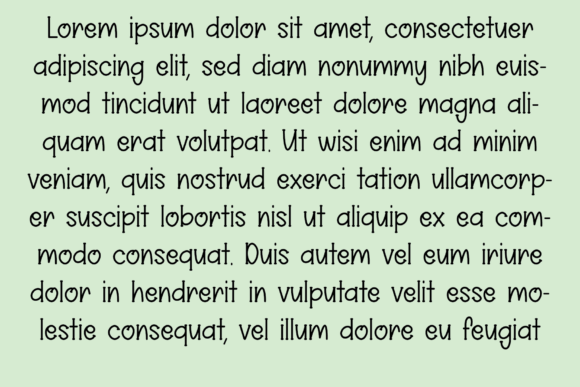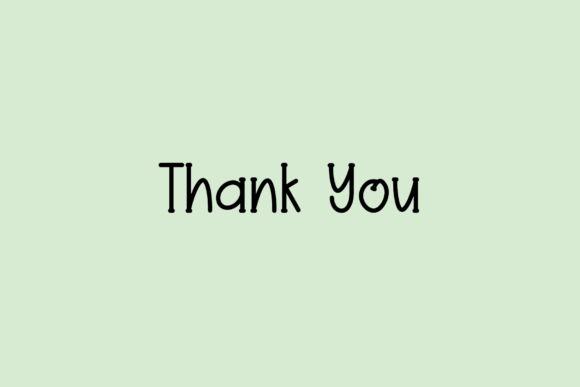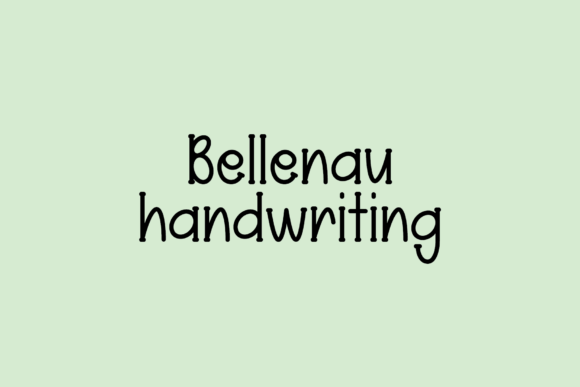
Bellenau Font: Adding a Touch of Whimsy to Your Designs
In the world of typography, fonts play a crucial role in conveying the tone and personality of a design. If you’re looking for a font that exudes fun, friendliness, and a dash of quirkiness, look no further than Bellenau Font. This delightful handwritten font is perfect for designers and crafters seeking to add a touch of whimsy to their projects.
The Bellenau Font Difference
Bellenau Font is a unique and charming typeface that is sure to brighten up any design. Its whimsical and slightly quirky nature makes it an excellent choice for a wide range of applications, from logos and wedding invitations to quotes, advertisements, and more. Whether you’re working on a print project, a digital design, or a craft, Bellenau Font is sure to bring a smile to your face and add a touch of personality to your work.
What Makes Bellenau Font So Special?
So, what sets Bellenau Font apart from other fonts? Here are just a few of its standout features:
- Handwritten charm: Bellenau Font has a distinctly handwritten feel that’s both personal and approachable.
- Whimsical and quirky: This font has a playful, carefree vibe that’s perfect for designs that need a bit of personality.
- Versatile: Bellenau Font is suitable for a wide range of applications, from logos and branding to invitations, quotes, and more.
- Easy to read: Despite its playful nature, Bellenau Font is surprisingly easy to read, making it perfect for both digital and print designs.
Using Bellenau Font in Your Designs
So, how can you use Bellenau Font in your designs? The possibilities are endless! Here are a few ideas to get you started:
- Logos and branding: Bellenau Font is perfect for creating unique and memorable logos that showcase your brand’s personality.
- Wedding invitations: Add a touch of whimsy to your wedding invitations and stationery with Bellenau Font.
- Quotes and posters: Use Bellenau Font to create eye-catching quotes and posters that are sure to grab attention.
- Advertisements: Bellenau Font is a great choice for advertisements that need to stand out from the crowd.
- Print and digital publications: Use Bellenau Font in your print and digital publications, such as magazines, brochures, and more.
Why Designers and Crafters Love Bellenau Font
Designers and crafters alike love Bellenau Font for its unique blend of whimsy and versatility. Here are just a few reasons why:
- Easy to use: Bellenau Font is surprisingly easy to use, even for those who are new to design.
- Customizable: Bellenau Font can be customized to suit your design needs, from adjusting the size and color to adding your own flair.
- Time-saving: With Bellenau Font, you can create professional-looking designs in no time.
- Inspiring: Bellenau Font is sure to inspire your creativity and help you come up with fresh design ideas.
In conclusion, Bellenau Font is a fun and friendly handwritten font that’s perfect for designers and crafters seeking to add a touch of whimsy to their projects. With its unique blend of playfulness and versatility, Bellenau Font is sure to brighten up any design and bring a smile to your face. Whether you’re working on a logo, wedding invitation, quote, advertisement, or more, Bellenau Font is an excellent choice. So why not give it a try and see the difference it can make in your designs?